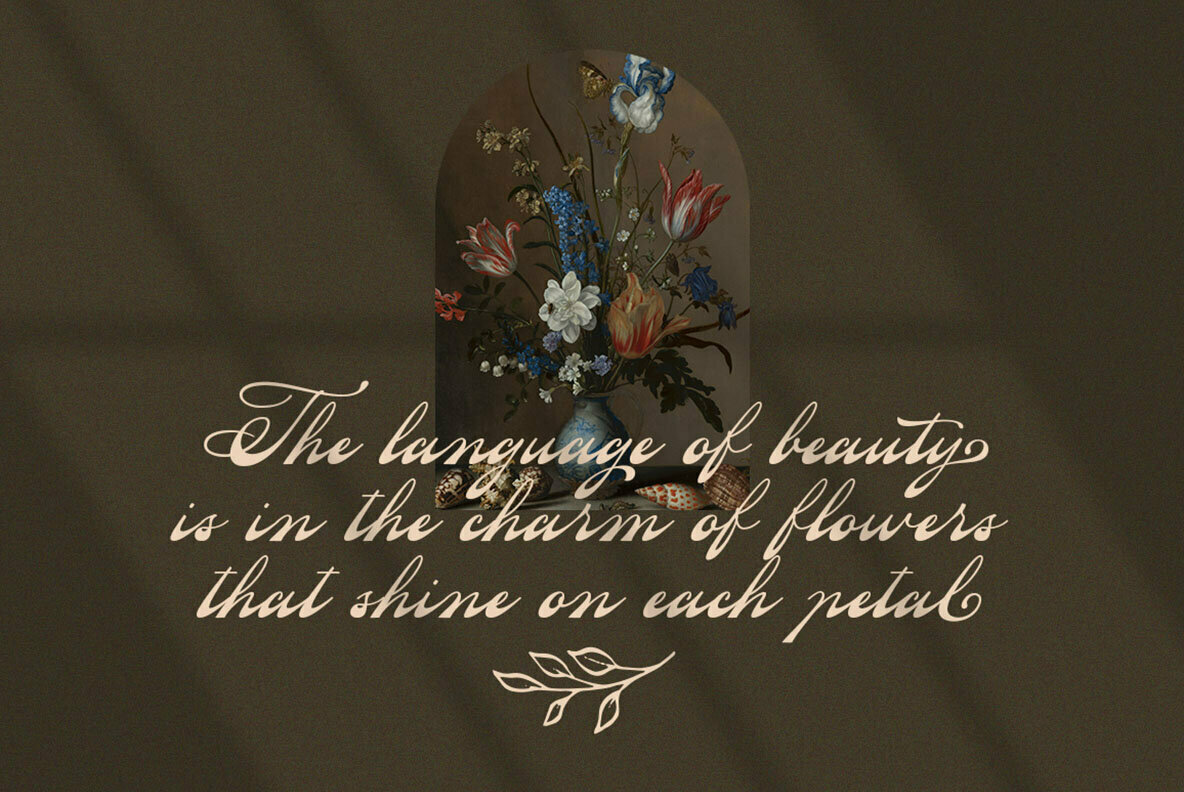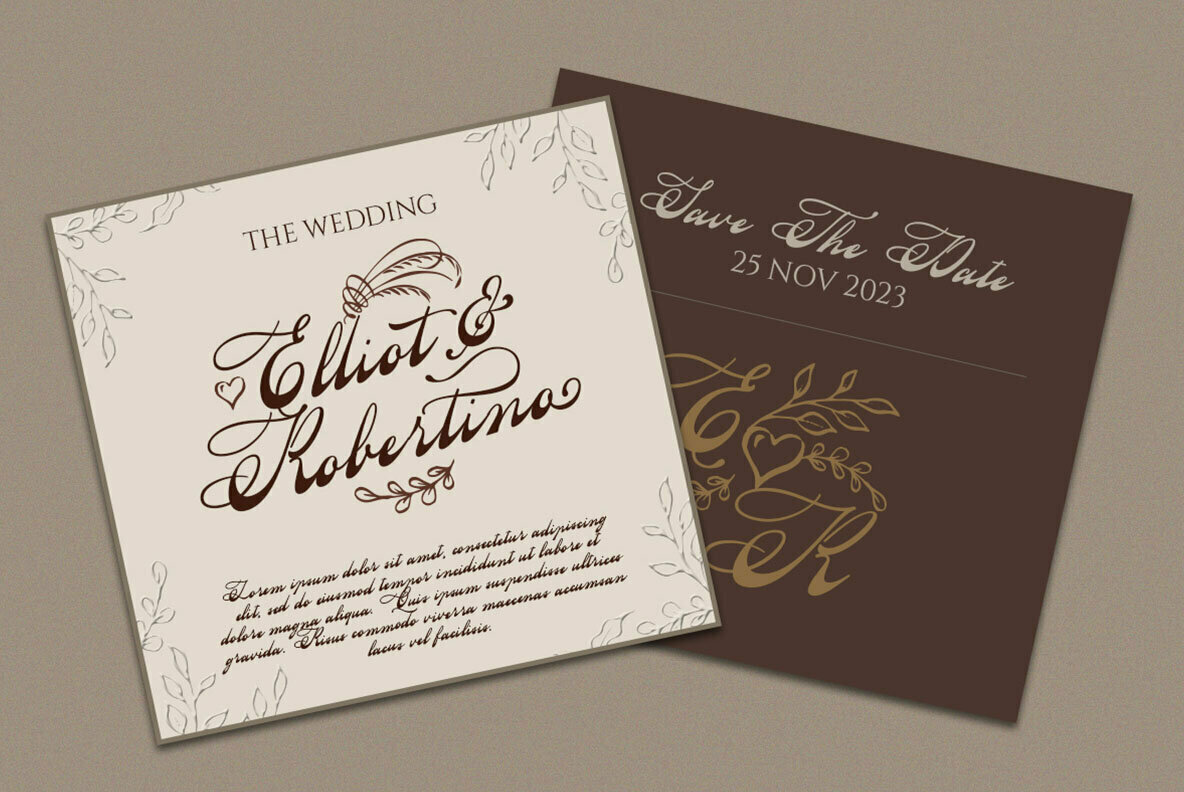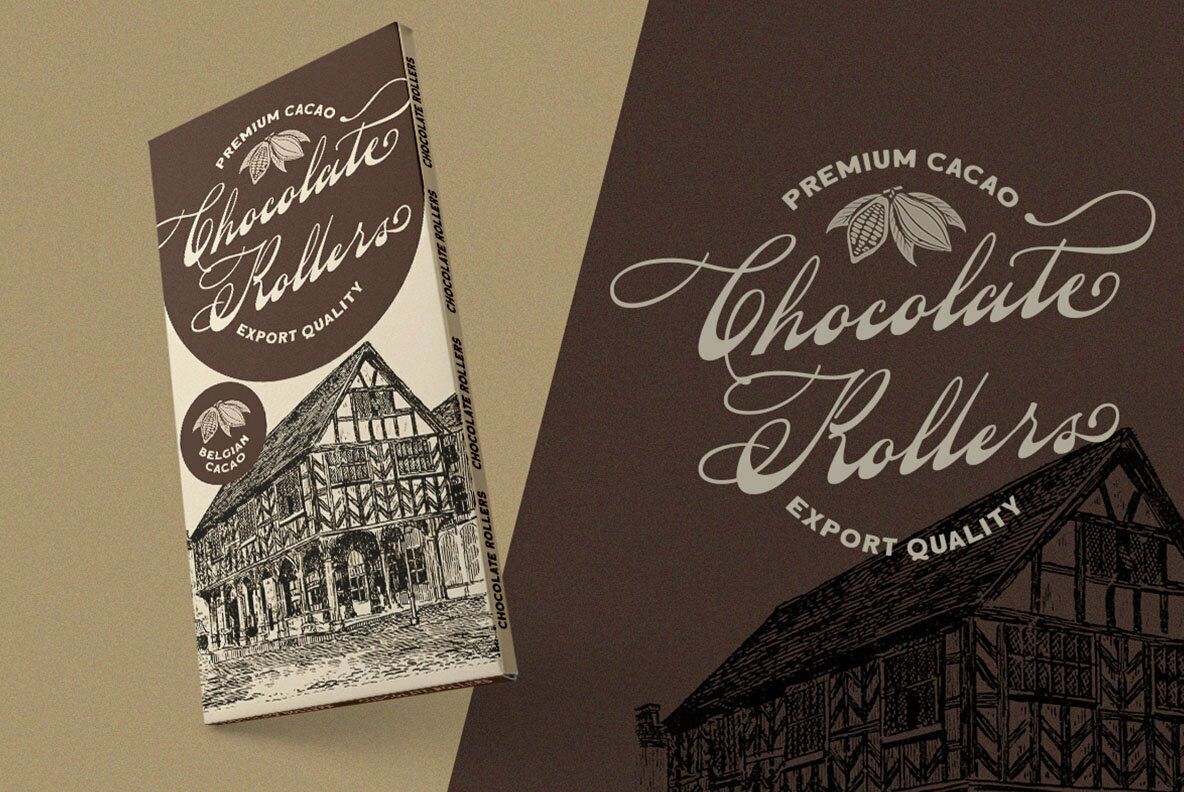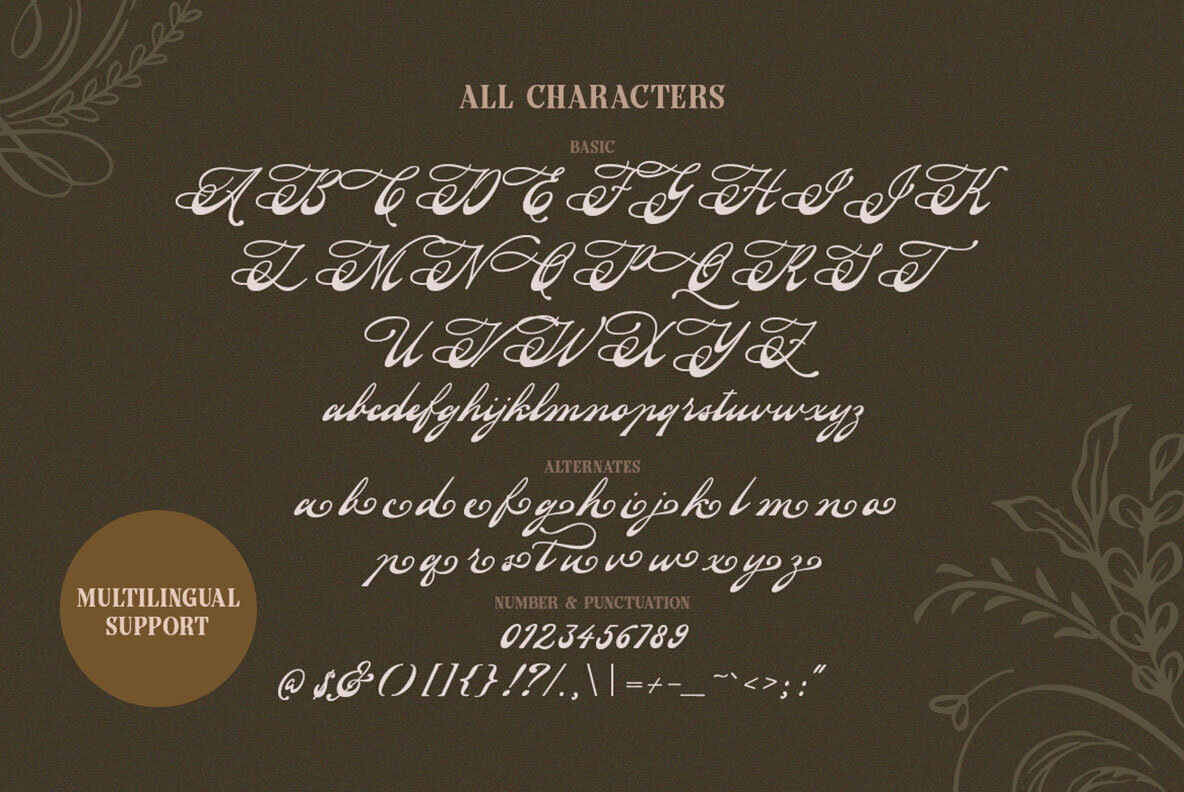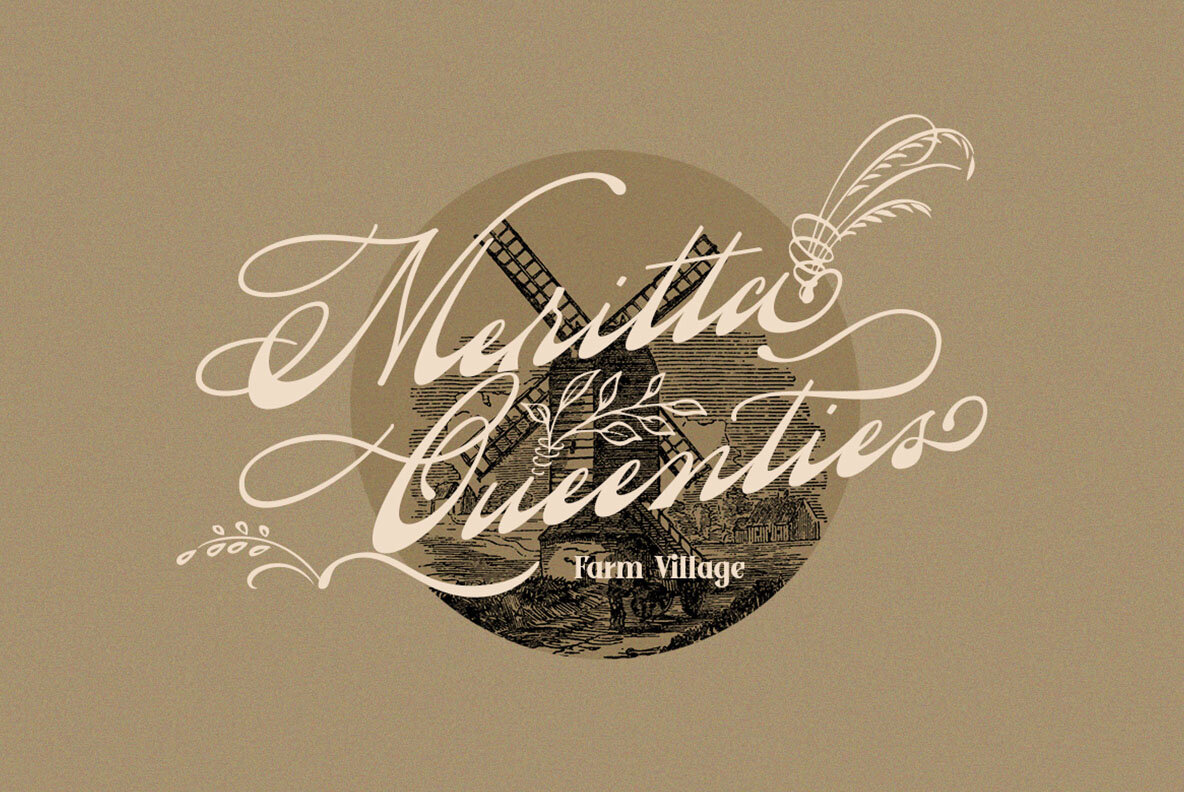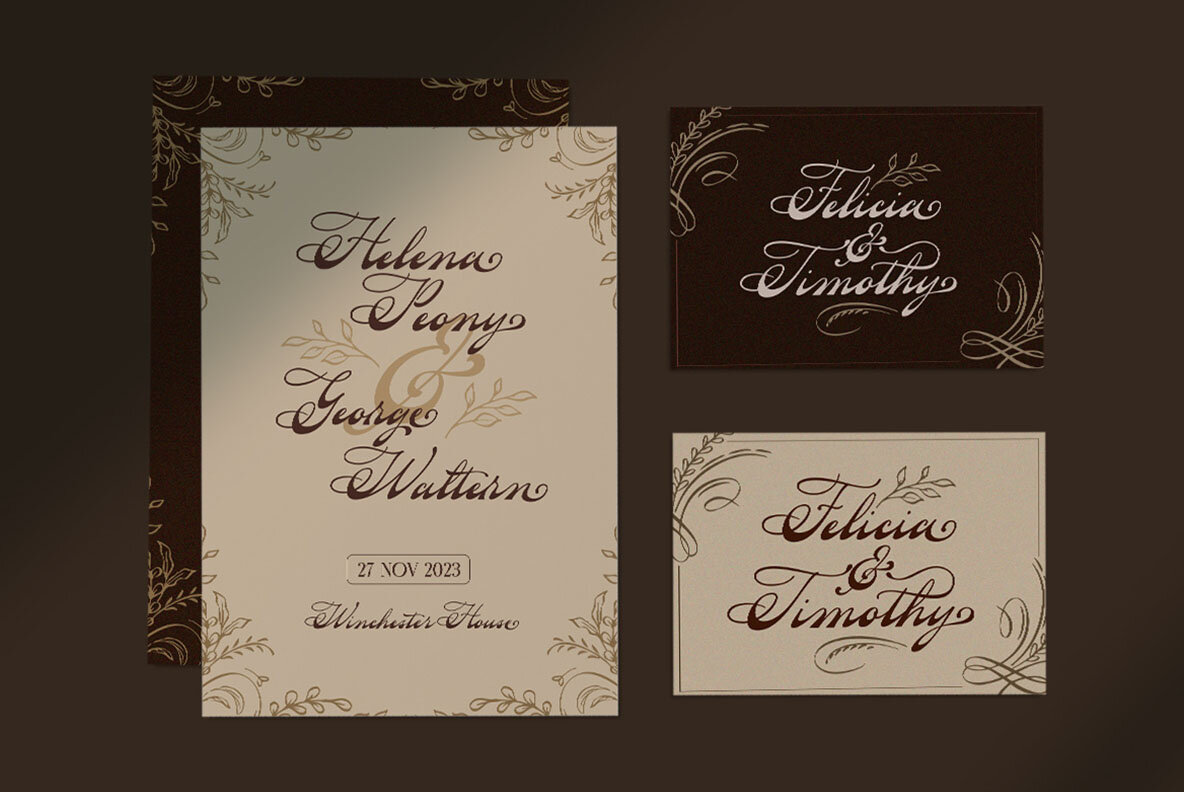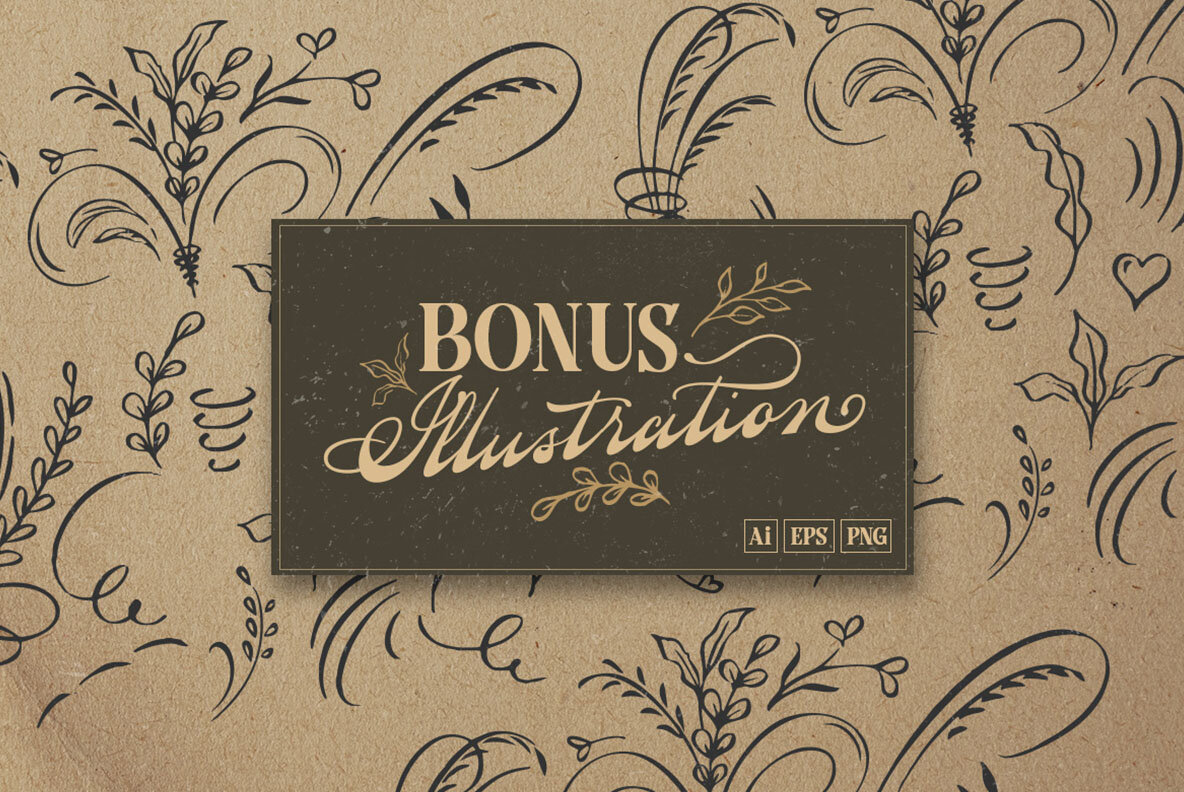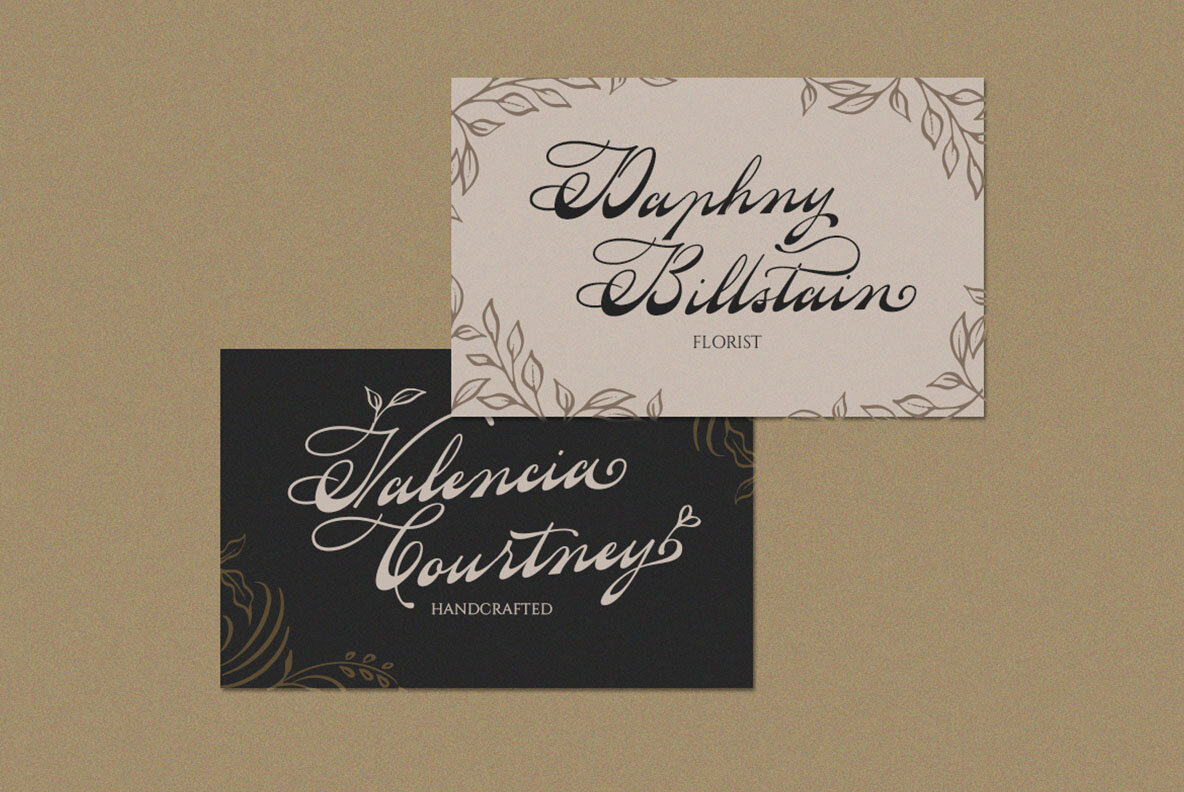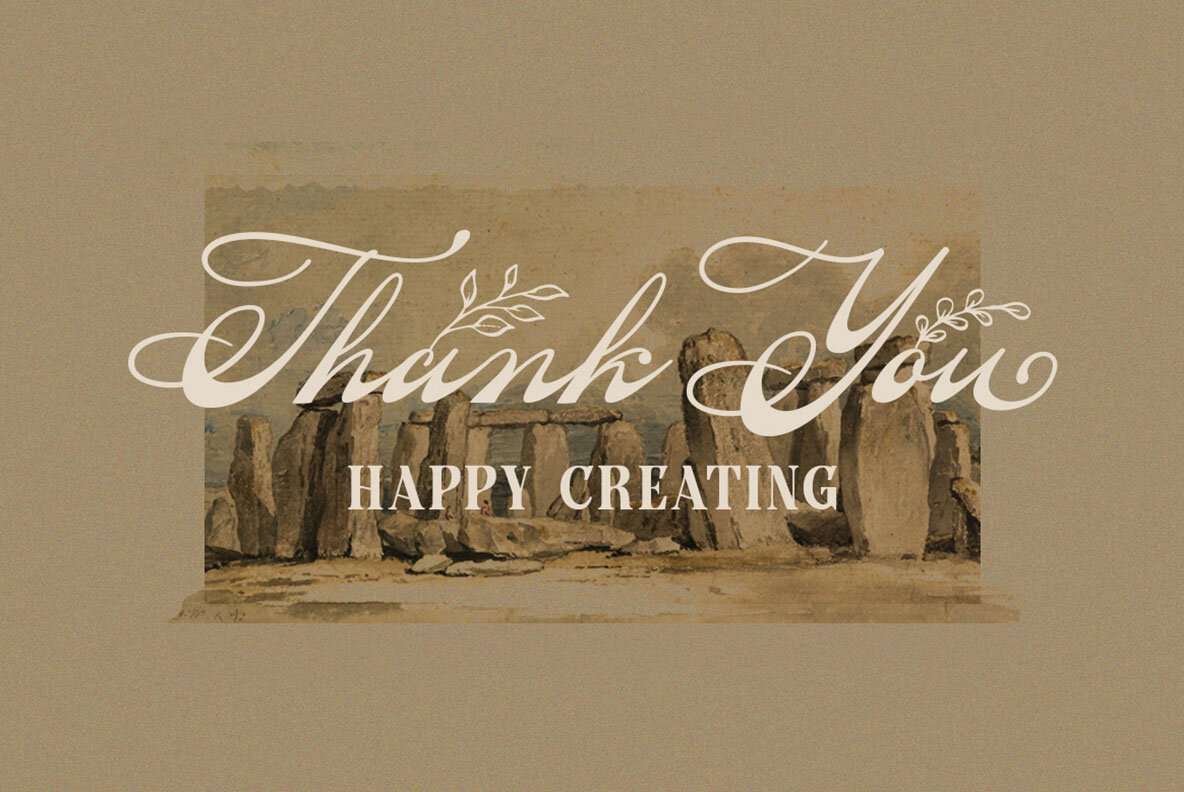
Yesternight Font
Step back in time with Yesternight, a vintage script typeface from Letterhend Studio. This font evokes a sense of nostalgia thanks to its retro style, making it perfect for projects with a vintage theme. The ornate swashes add distinctive flair, allowing you to craft exquisite vintage lettering with ease. Whether you're designing logos or creating invitations, Yesternight brings a timeless touch to your work. Yesternight is designed for versatility and elegance, especially in formal applications like invitations, labels, and logos. It also shines in print media such as magazines, books, and greeting cards, as well as packaging, fashion, and stationery. Perfect for both personal and advertising projects, this typeface is a valuable addition to any designer's toolkit. Features: To leverage the full potential of Yesternight, use a program that supports OpenType features and Glyphs panels, such as Adobe applications or Corel Draw. These tools allow you to explore all glyph variations and make the most of this typeface's rich offerings.Yesternight: A Vintage Script with Nostalgic Charm